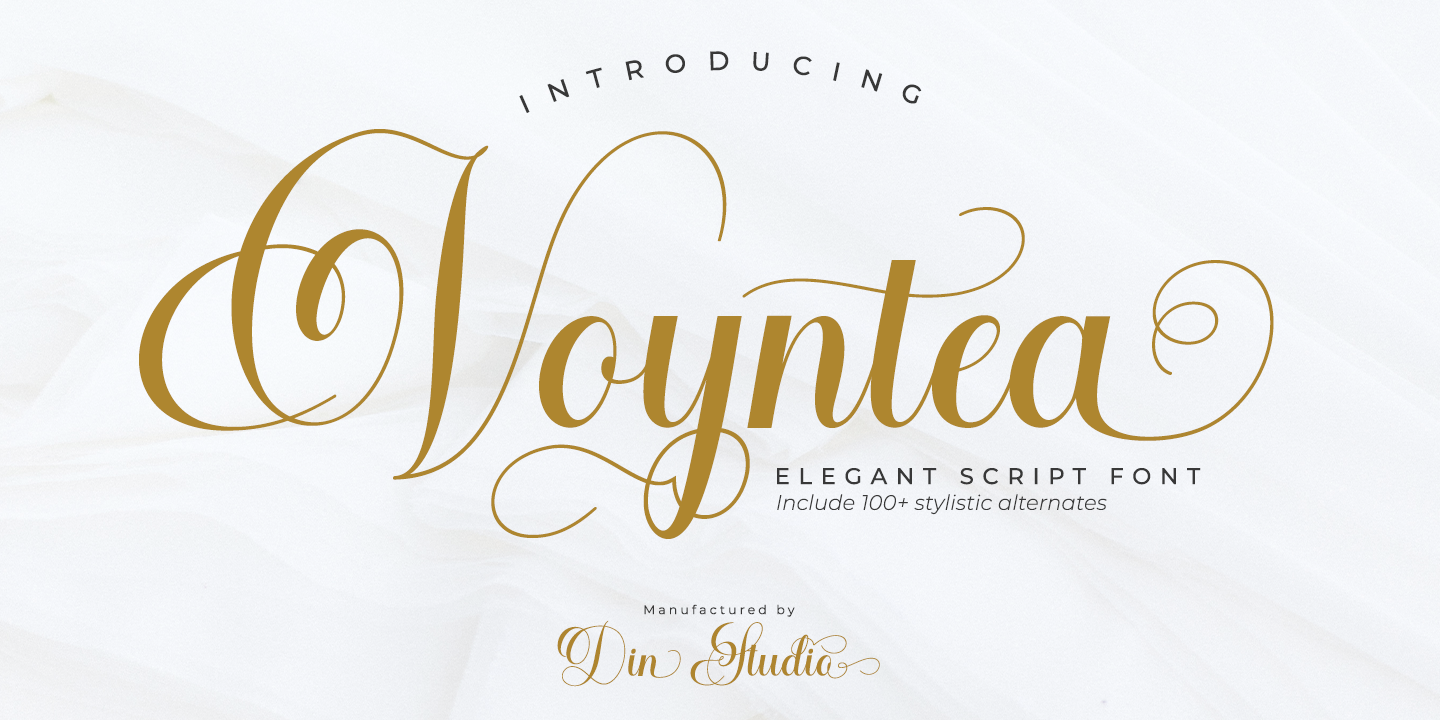
Voyntea Font excels in elegant design applications including premium tea brand packaging, sophisticated café signage, luxury hospitality branding, high-end restaurant menus, artisanal beverage labels, boutique hotel communications, refined wellness center materials, exclusive spa branding, upscale lifestyle marketing, and cultivated cultural event designs. This distinguished typeface seamlessly combines European sophistication with contemporary refinement, making it an essential tool for designers working on projects that demand elegance, cultural depth, and premium aesthetic appeal.
What makes Voyntea Font particularly exciting is its sophisticated interpretation of continental European typography traditions blended with modern luxury aesthetics that creates an unmistakably refined and culturally rich character perfect for premium lifestyle brands. The font features graceful letterforms with subtle serif influences and carefully balanced proportions that evoke the elegance of European café culture and the refined atmosphere of continental sophistication. Its polished design incorporates traditional calligraphic elements with contemporary luxury standards, creating perfect harmony between Old World charm and modern premium appeal. The typeface's ability to convey both cultural authenticity and luxury sophistication makes it perfect for brands seeking to establish connections with European heritage and refined taste. Each character has been meticulously crafted to reflect the artistic mastery of European design traditions while ensuring optimal performance across luxury applications and international premium markets.
The Voyntea Font family encompasses refined variations including Light, Regular, Medium, Bold, and Elegant Script styles, each maintaining the core European aesthetic while offering distinct levels of sophistication and visual presence. The family also features condensed versions for space-conscious luxury applications and extended variants for grand premium headline treatments. Special decorative cuts may include ornamental capitals, flourished alternates, and classical ligatures that enhance the font's aristocratic character and provide authentic European typographic sophistication for high-end branding applications.
Luxury hospitality professionals consistently choose Voyntea Font Free Download for projects requiring authentic European elegance and sophisticated cultural appeal. This remarkable typeface has gained recognition in the premium market for its ability to communicate heritage, refinement, and cultivated taste through thoughtful typographic design inspired by European cultural traditions. The font's comprehensive OpenType features include stylistic alternates, classical ligatures, and ornamental elements that support sophisticated luxury branding and authentic European cultural communication.
Whether you're developing premium beverage branding, creating luxury hospitality identities, designing cultural event materials, or crafting high-end lifestyle communications, Voyntea Font delivers exceptional results. Its elegant aesthetic makes it particularly suitable for tea companies, luxury cafés, boutique hotels, cultural institutions, and premium lifestyle brands seeking to communicate sophistication, heritage, and European cultural authenticity through their visual identity.
The font's technical specifications ensure flawless performance across all luxury branding applications while preserving its classical European character. It includes comprehensive Unicode support for international luxury markets, making it suitable for global premium brands and multilingual cultural projects. The careful optimization guarantees elegant rendering across various premium media, maintaining the font's sophisticated qualities whether displayed on luxury packaging or reproduced in high-end hospitality materials.
Professional designers appreciate Voyntea Font's ability to convey European heritage and luxury sophistication while maintaining commercial effectiveness and brand distinction. Its aristocratic presence creates immediate associations with quality and cultural refinement while remaining highly functional for comprehensive luxury branding systems. The font's European-inspired design helps organizations establish premium market positioning while connecting with audiences who appreciate cultural authenticity, refined taste, and sophisticated continental design traditions.